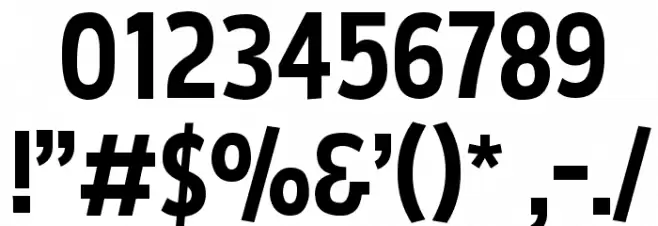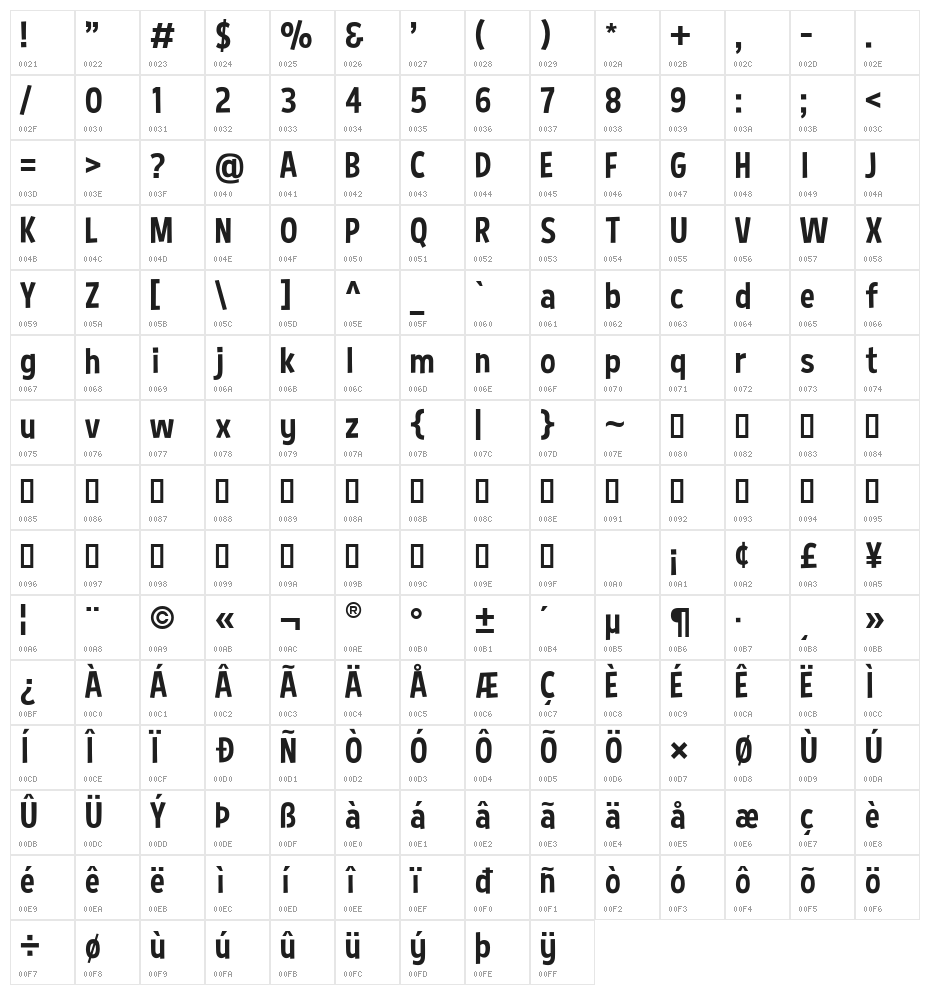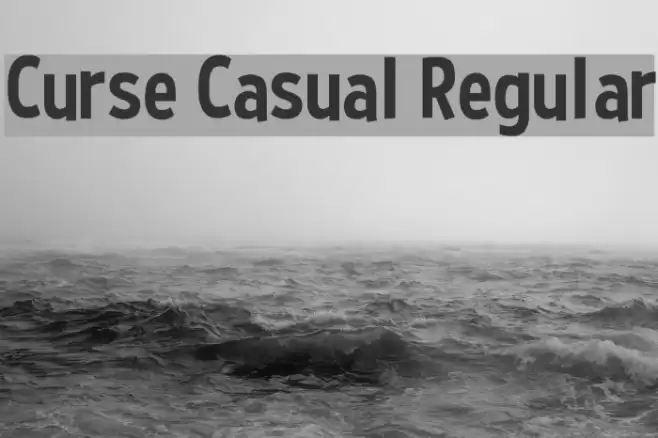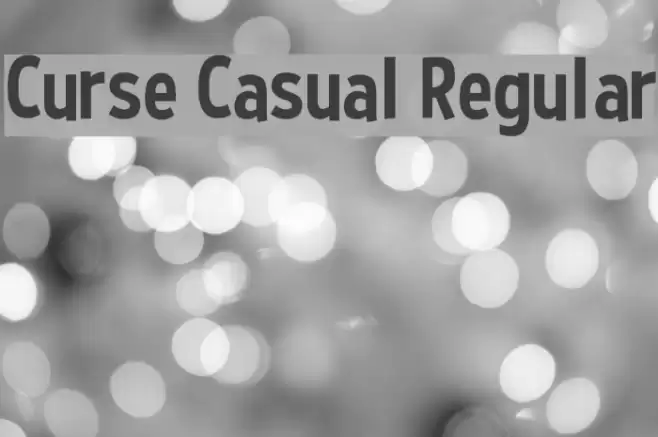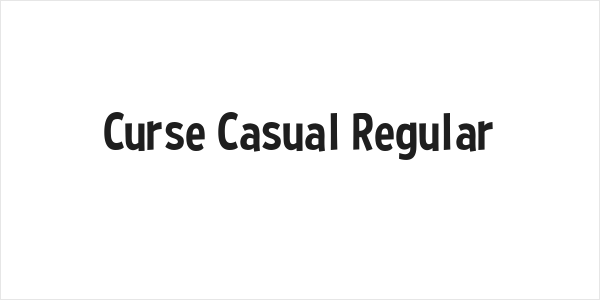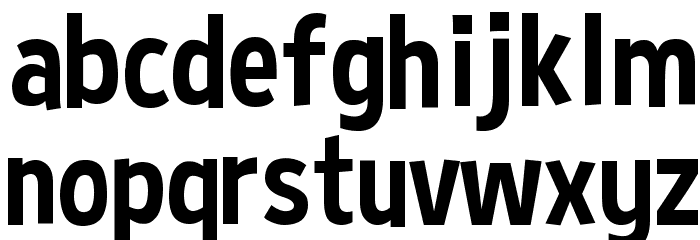
Curse Casual Regular Font
Curse Casual Regular Description
This font features a bold and robust design with clean, straight lines and a slightly condensed appearance. The characters are well-defined, with a modern and professional look that maintains readability across various sizes. The uppercase letters are particularly striking, with a strong presence that commands attention. Lowercase letters complement the uppercase with a consistent style, ensuring a harmonious overall appearance. The numerals are clear and easy to distinguish, making them suitable for both display and text settings. Special characters are included, providing versatility for different design needs.
Font by Jayvee D. Enaguas - grandchaos9000.deviantart.com
Use CaseHeadlines, Logos, Branding
Proposed ProjectsIdeal for branding, advertising, headlines, and digital content where a strong, modern presence is desired.